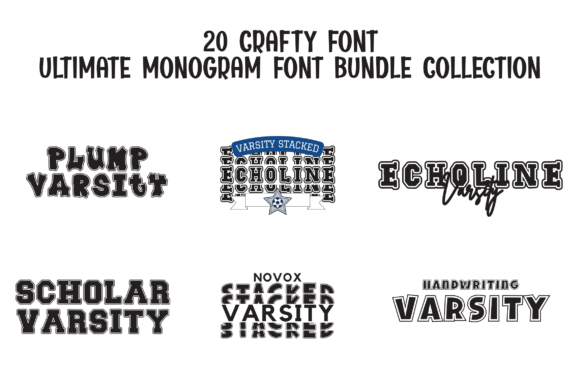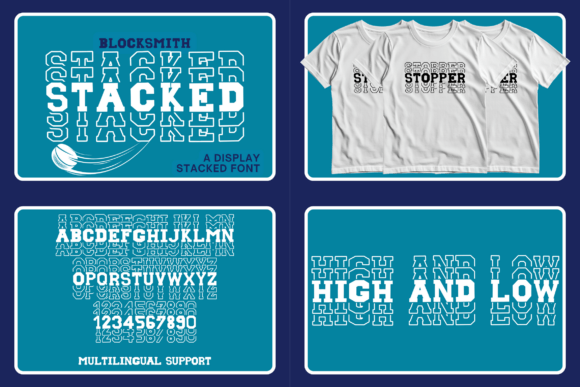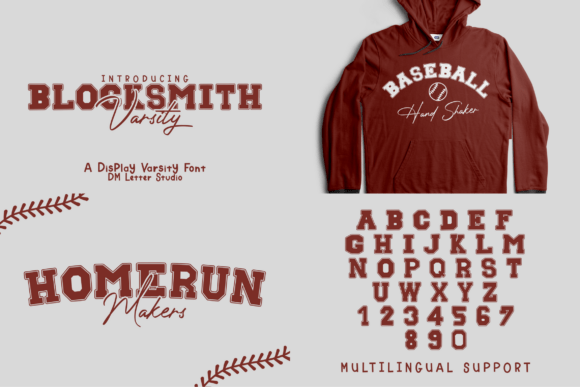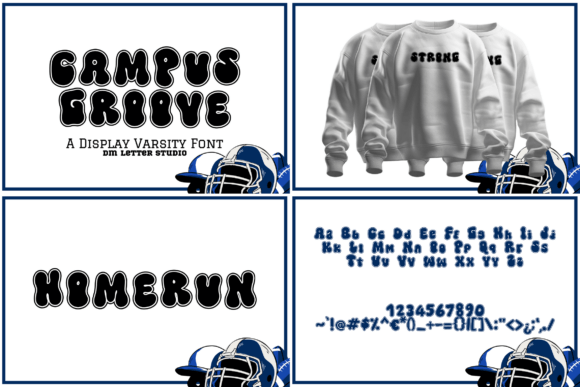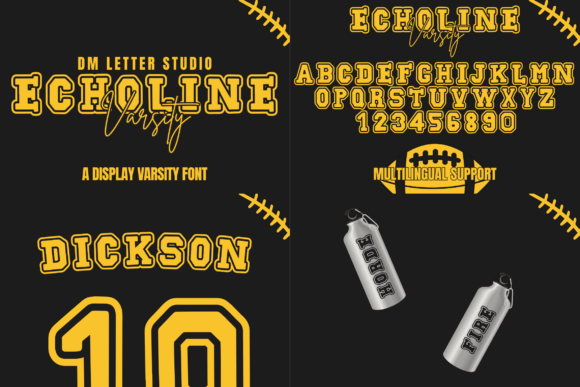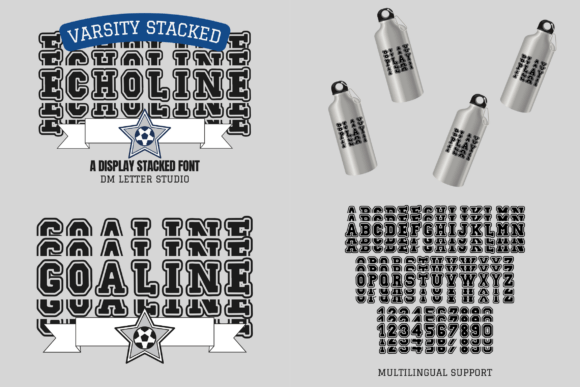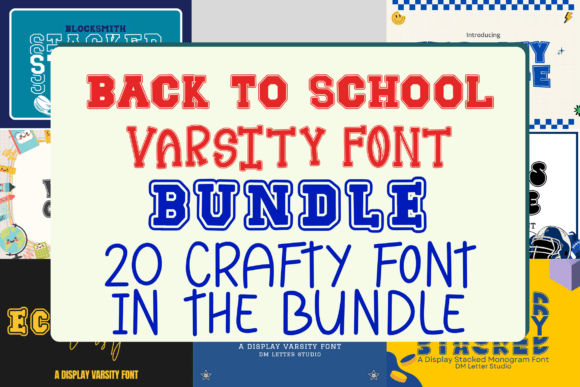
Back to School: Varsity Font Bundle for Bold Collegiate Designs
As the new academic year approaches, designers and crafters are on the lookout for the perfect fonts to create bold, eye-catching materials for school events, team branding, and merchandise. Look no further than the Back to School: Varsity Font Bundle, a comprehensive toolkit that includes everything you need to create stunning collegiate designs.
A Complete Toolkit for Bold Collegiate Designs
The Back to School: Varsity Font Bundle is a complete collection of fonts that will help you create bold, sporty, and stylish designs for school spirit graphics, merchandise, and more. This bundle includes a mix of classic varsity blocks, retro styles, outlines, stacked options, and monogram initials, giving you the flexibility to create a wide range of designs from one download.
What’s Included in the Bundle?
The Back to School: Varsity Font Bundle includes a range of fonts that are perfect for creating bold, collegiate designs. The fonts included in this bundle are:
- Varsity Collage
- Varsity College
- Retro Varsity
- Quirky Varsity Handwriting
- Novox Varsity
- Novox Varsity Monogram
- Echoline Varsity
- Echoline Varsity Stacked
- Blocksmith Varsity
- Blocksmith Outline
- Blocksmith Stacked
- Scholar Block
- Scholar Outline
- Scholar Stacked
With the Back to School: Varsity Font Bundle, the design possibilities are endless. You can use these fonts to create a wide range of materials, including:
- School events: Create posters, flyers, and social media graphics to promote school events, such as football games, concerts, and plays.
- Team branding: Design logos, jerseys, and other merchandise for school teams, clubs, and organizations.
- Club merch: Create custom merchandise for school clubs, such as t-shirts, hoodies, and stickers.
- Senior designs: Design personalized materials for seniors, such as t-shirts, posters, and social media graphics.
- Year graphics: Create graphics and posters to celebrate the start of a new academic year.
- Campus promos: Design promotional materials for campus events, such as concerts, festivals, and fairs.
- Stickers and posters: Create custom stickers and posters for school events, teams, and clubs.
- Social templates: Design social media graphics and templates for school teams, clubs, and organizations.
Benefits of Using the Varsity Font Bundle
Using the Back to School: Varsity Font Bundle offers a range of benefits, including:
- Consistency: Use a consistent font style across all your designs to create a cohesive brand identity.
- Scalability: Easily scale your designs up or down without compromising on quality.
- Time-saving: Save time by having access to a range of fonts in one bundle, rather than having to search for individual fonts.
- Flexibility: Use the fonts to create a wide range of designs, from bold and sporty to stylish and elegant.
The Back to School: Varsity Font Bundle is perfect for designers and crafters who want to create bold, eye-catching materials for school events, team branding, and merchandise. Whether you’re a professional designer or a DIY crafter, this bundle has everything you need to create stunning designs that will make your school spirit shine.